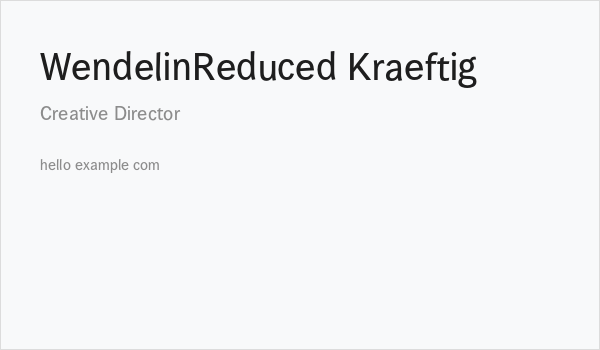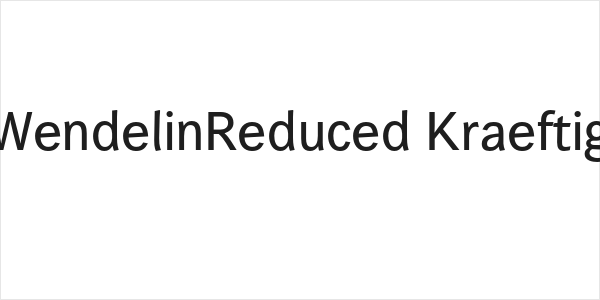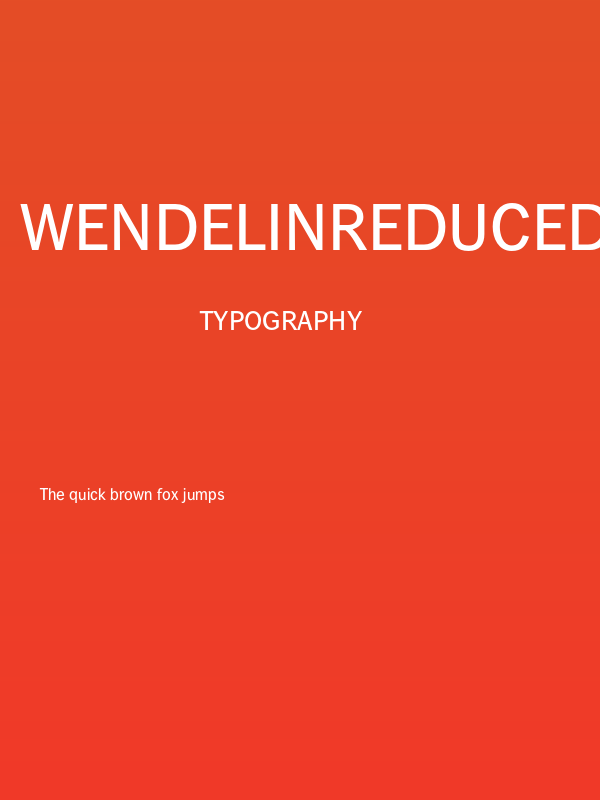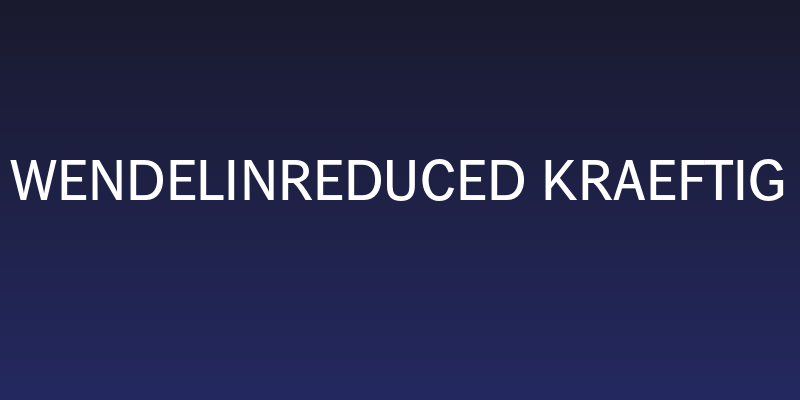
WendelinReduced-Kraeftig Font
WendelinReduced-Kraeftig Description
This typeface features a clean and modern sans-serif design, characterized by its simplicity and readability. The letters are evenly spaced with a consistent stroke width, providing a balanced and harmonious appearance. The uppercase letters are bold and assertive, while the lowercase letters maintain a friendly and approachable feel. The font includes a full set of uppercase and lowercase letters, numerals, and a selection of special characters. Its geometric shapes and uniformity make it versatile for various design applications.